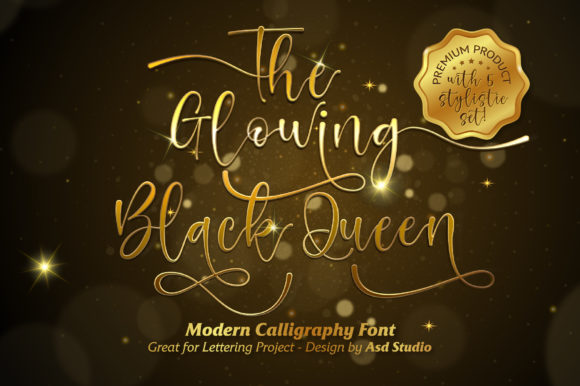
Step into the world of The Glowing Black Queen Font, a script font that exudes elegance and contemporary flair. This font is not just a collection of letters; it's an art piece that merges classic calligraphy with modern aesthetics. Its versatility is as captivating as its beauty, making it perfect for a plethora of creative projects.
The Glowing Black Queen Font's strokes dance across the page like a ballerina, embodying grace and poise. Each character is meticulously crafted to emanate sophistication, whether you're composing mesmerizing letterheads, crafting captivating titles, or designing elegant stationery. Its adaptability knows no bounds, making it the perfect companion for a diverse range of projects.
Imagine holding a letter adorned with The Glowing Black Queen Font in your hands. The texture of the paper and the weight of the words combine to create a sensory experience that captivates your senses. Your fingers will glide over the smooth curves and deliberate angles, feeling the soul of each letter. The words you read will resonate with a depth and significance that only The Glowing Black Queen Font can provide.
Whether you're a seasoned graphic artist or just starting to dabble in the world of design, The Glowing Black Queen Font is the perfect tool to elevate your projects. Its user-friendly interface and intuitive design make it accessible to everyone, regardless of their skill level. Unleash your creativity and let The Glowing Black Queen Font transform your ideas into stunning realities.
With The Glowing Black Queen Font, you'll embark on a journey of artistic exploration, crafting designs that captivate and inspire. It's more than just a font; it's a gateway to a world of endless possibilities. Experience the magic of The Glowing Black Queen Font today and see your designs blossom into masterpieces.